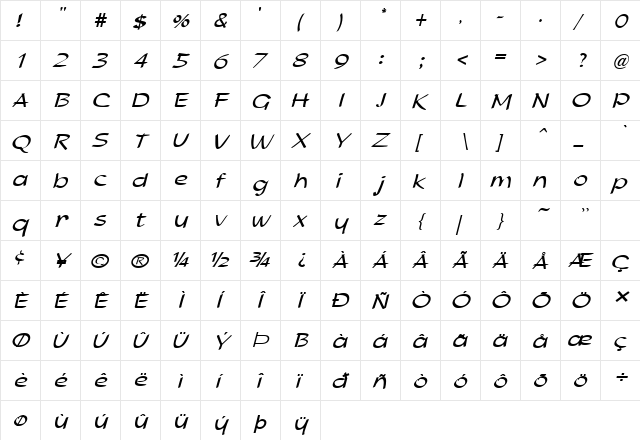
Parson-Extended Italic Font Preview
Parson-Extended Italic
Parson-Extended Italic Font Details
Design Context for Parson-Extended Typeface
Parson-Extended takes a measured approach to typography — its balanced proportions and neutral character make it a reliable workhorse for both digital and print work. Its italic angle brings a sense of urgency and motion to the letterforms.
Pro Tip: Try Parson-Extended for annotation and caption copy alongside an upright companion — the contrast in angle creates a dynamic but ordered typographic system.